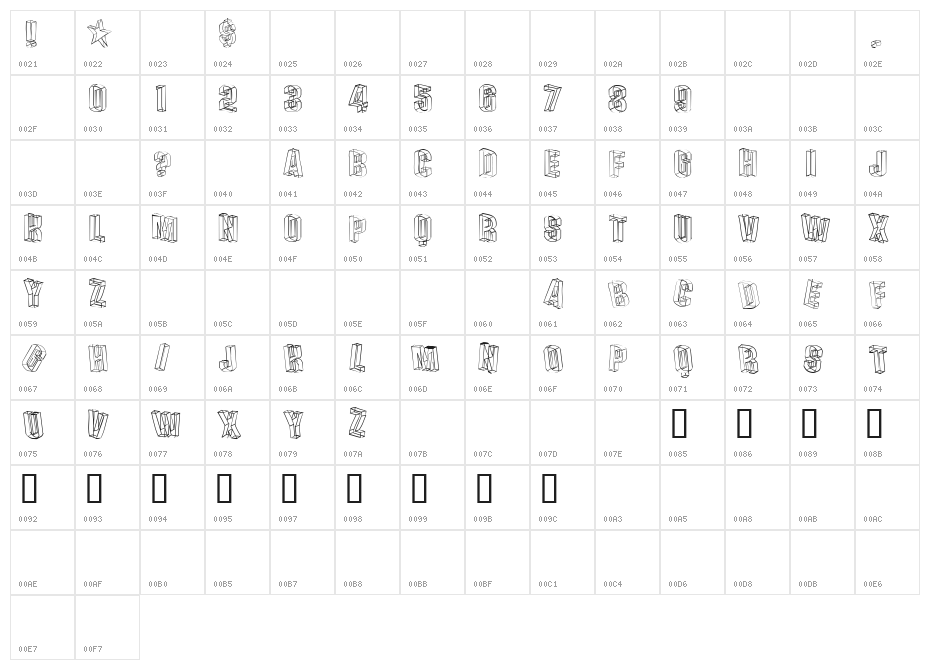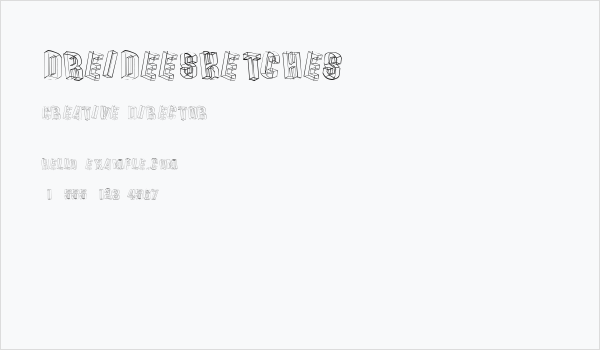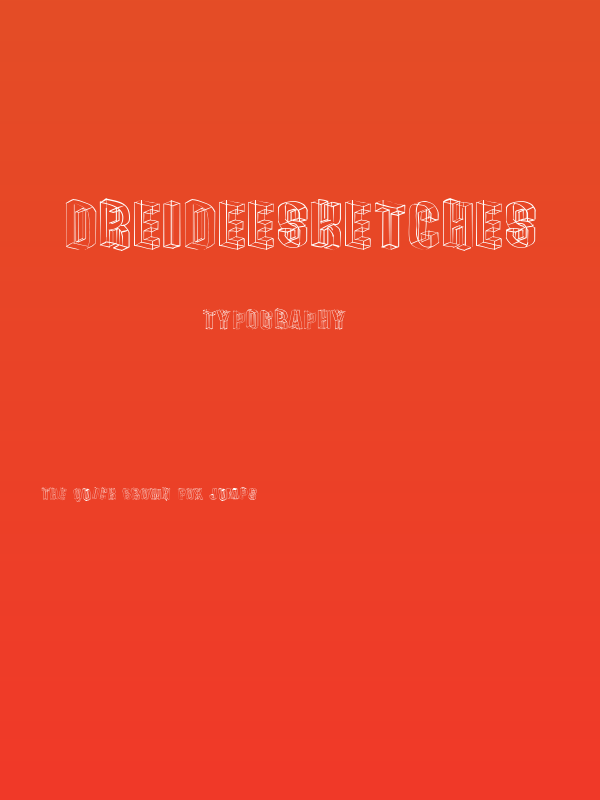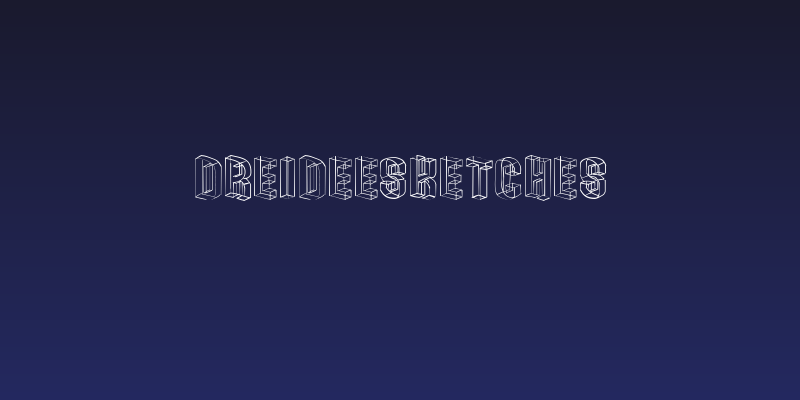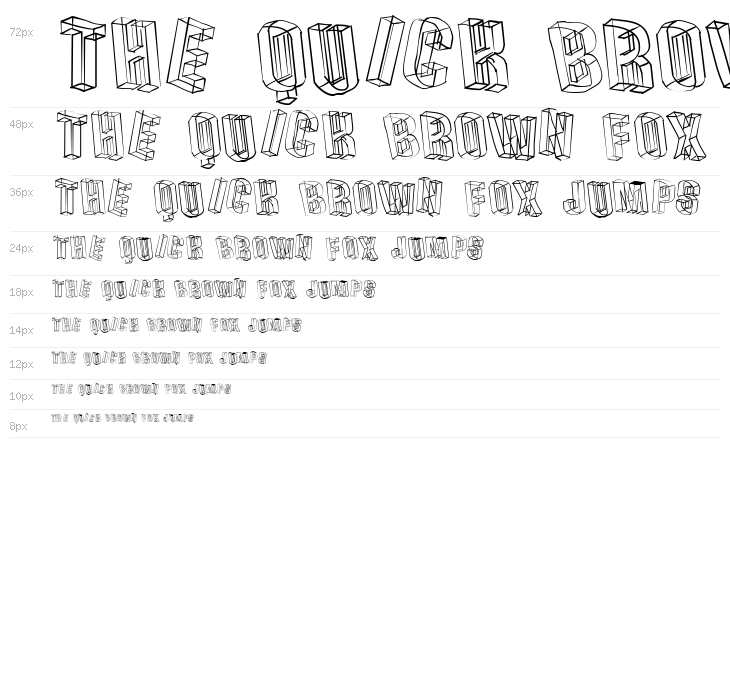
DreiDeeSketches Font
DreiDeeSketches Description
This font features a unique 3D sketch style, giving each character a dimensional and artistic appearance. The letters are outlined with a hand-drawn effect, creating a sense of depth and movement. The uppercase and lowercase letters, along with numbers and special characters, maintain a consistent three-dimensional look. The playful and creative design makes it stand out, ideal for projects that require a bold and imaginative touch. The font's structure is both intricate and clear, allowing for readability while showcasing its artistic flair.
| Proposed Projects | Ideal for creative projects such as posters, album covers, branding, and any design requiring a bold, artistic touch. |